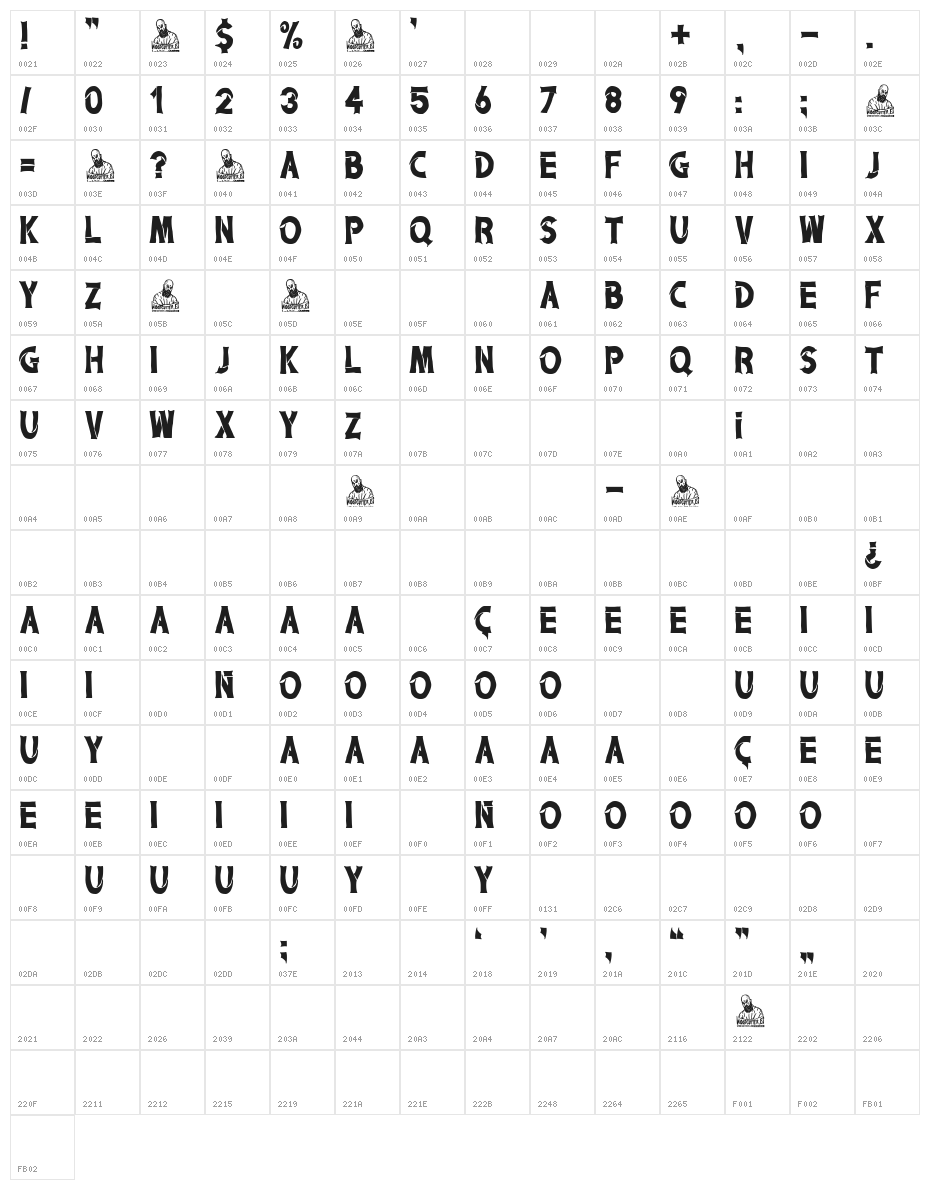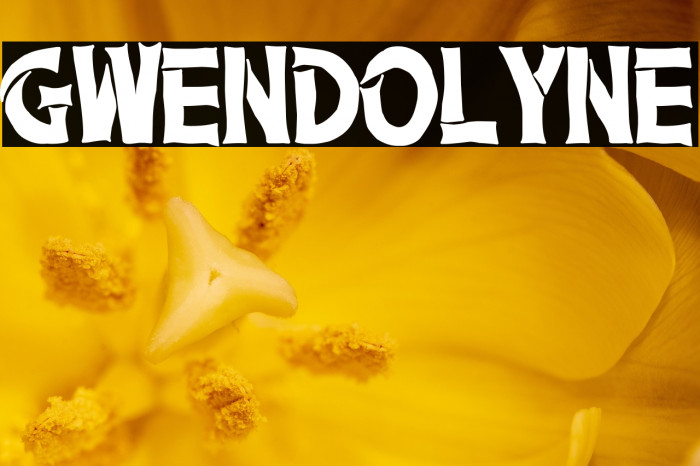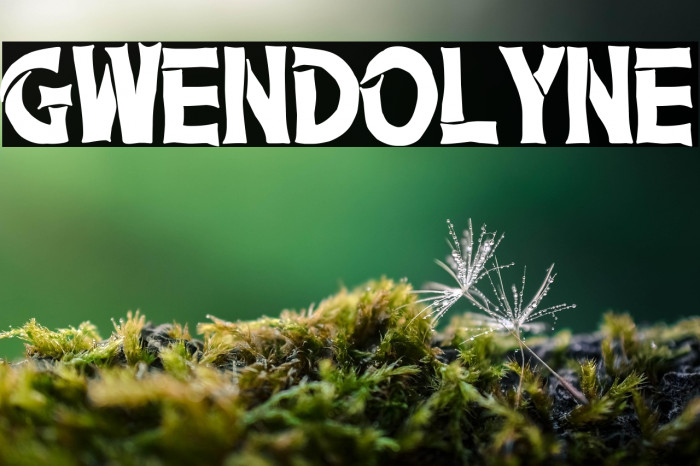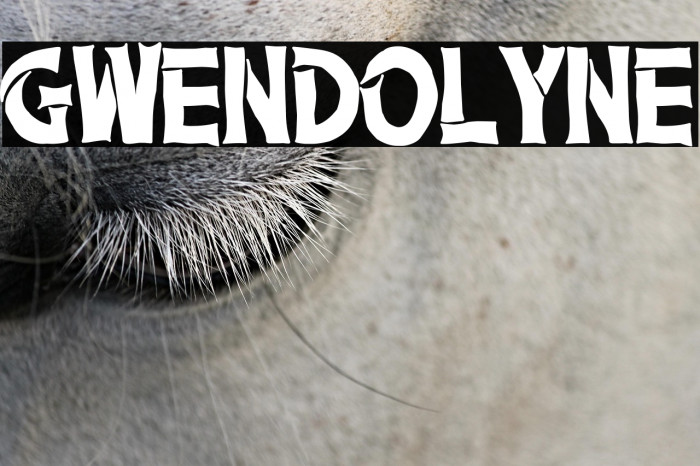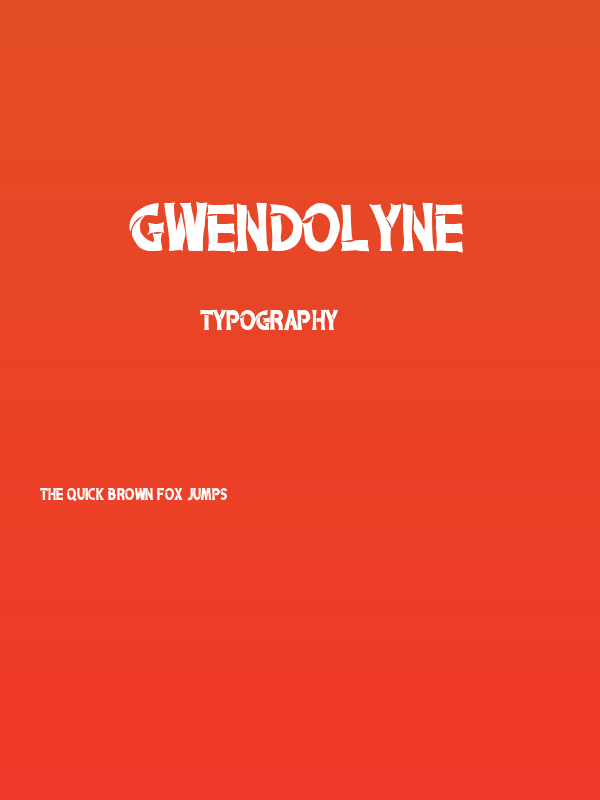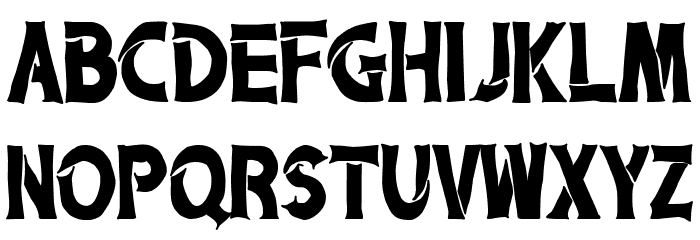
Gwendolyne Font
Gwendolyne Description
This font features a bold and dramatic style with sharp, angular edges and a slightly distressed appearance. The characters are highly stylized, with unique cuts and curves that give it a dynamic and edgy look. The uppercase and lowercase letters maintain a consistent design, while the numbers and special characters complement the overall aesthetic. This font's distinctive style makes it stand out, perfect for projects that require a strong visual impact.
| Proposed Projects | Ideal for posters, album covers, branding, and any project needing a bold, eye-catching typeface. |